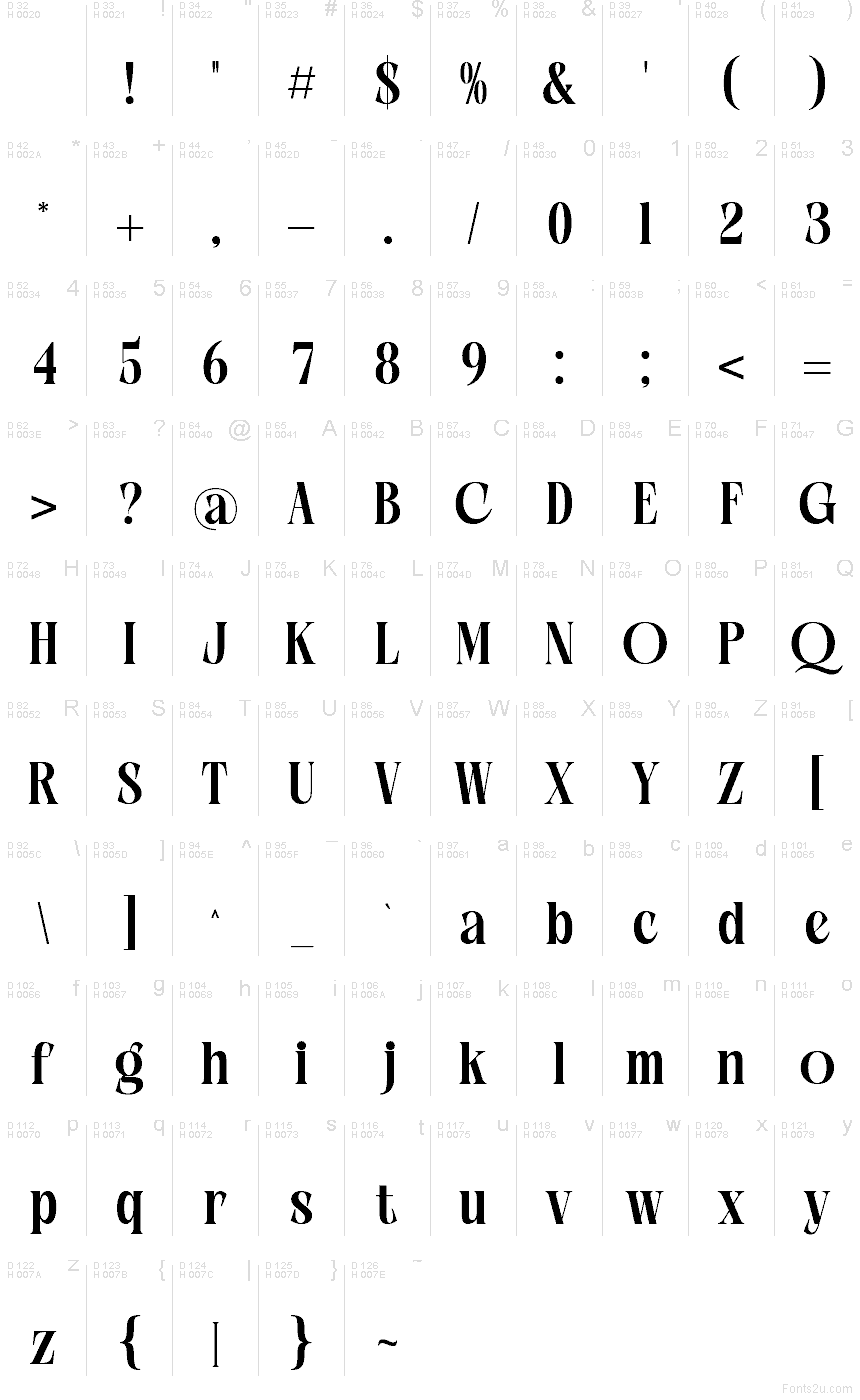
Glowfor, by TimelessType.co, is a free high-contrast modern serif with a sleek fashion-editorial mood. The letters pair hairline joins with broad, swelling strokes and crisp wedge-like serifs, so the font feels refined, a little dramatic, and very much at home in luxury-leaning layouts.
This free font works naturally for magazine mastheads, beauty packaging, boutique branding, book covers, and restaurant menus where a polished title needs some snap. It also suits short headlines and monograms especially well, because those tall, sculpted curves and sharp serif cuts give even a few letters a dressed-up presence.